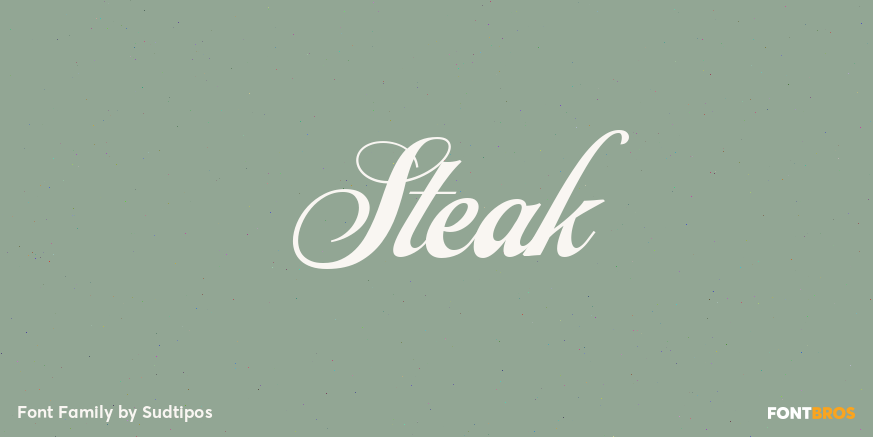
About Steak
Here I am, once again digging up 60-year sign lettering and trying to reconcile it with the typography of my own time. The truth is I\’ve had this particular Alf Becker alphabet in my sights for a few years now. Nevertheless, revisiting Alf Becker\’s work…